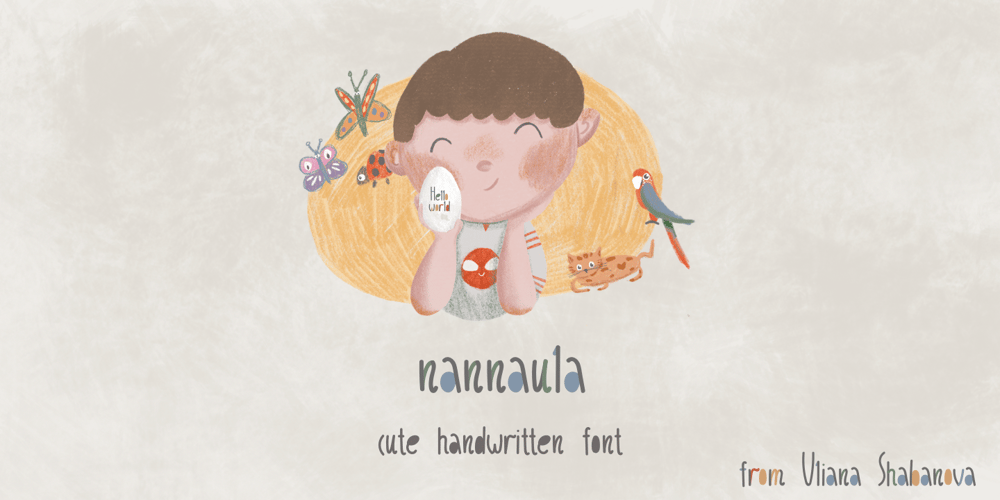
Nannaula
Nannaula font
Nannaula Font Family was designed by Uliana Shabanova and published by UlianaShabanova. Nannaula contains 2 styles and family package options. Welcome to the new font!A fun and playful handwritten font with universal letters that looks great in ALL CAPITAL letters or is regularly used in sentence cases. Perfect for book covers, children’s books, birthday invitations, stationery, calendars, magazines, Instagram posts and more!Each letter is a tall, all caps typeface with lots of bouncy glyphsPlease note that the Nannaula-colorvector font is COLOR and COLOR CANNOT be changed!BUT Nannaula-normal font is normal font and you can change the color:)Feel free to email meshabanovasprt@gmail.com if you have any questions. 🙂